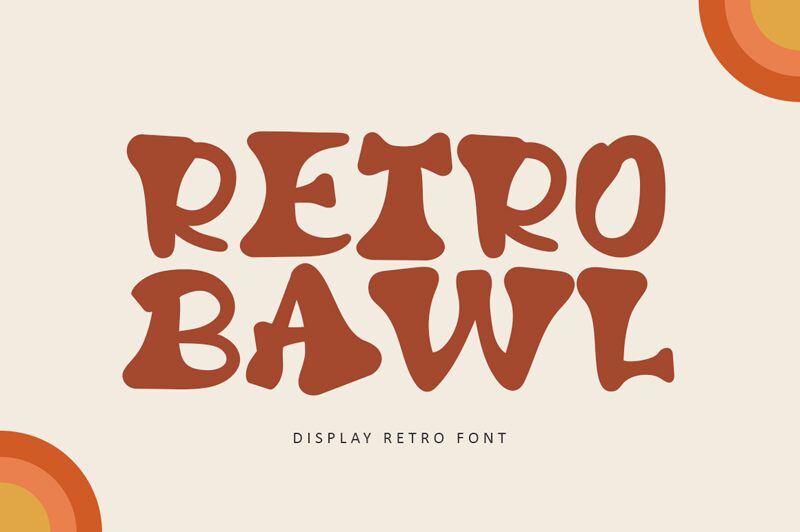
Retro Bawl font by Illushvara nails this retro inspiration with its beautiful and quirky design. Bold shapes, playful outlines, and accentuated forms contribute to the overall nostalgic appearance of the letters. Use them in all contexts where you wish to communicate positivity and joy of life.
Retro Bawl appeals to both designers and non-designers looking for a free display font with tons of uses. It is perfect for poster titles, costumes, signage, packaging labels, shelf headers, billboard ads, magazine covers and popular T-shirt designs. Its versatility extends also to the web in logos or social media templates.
Retro Bawl